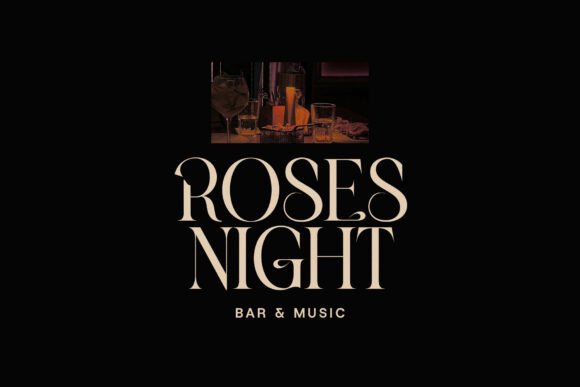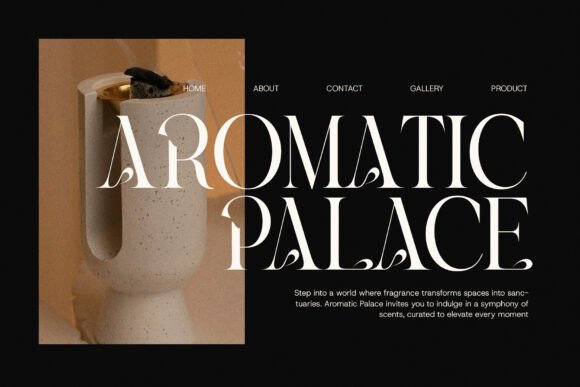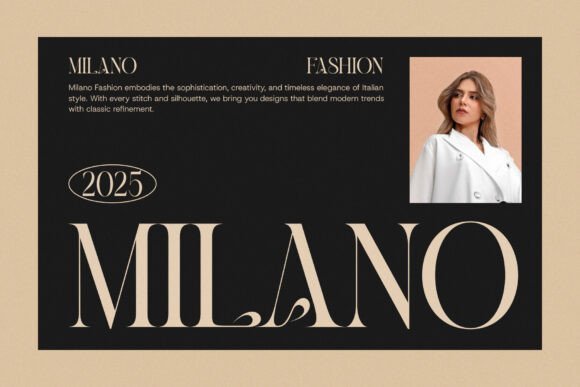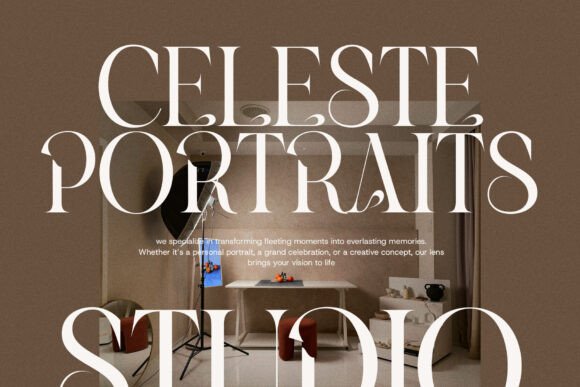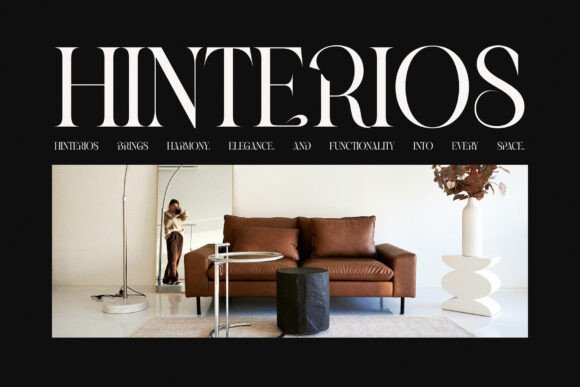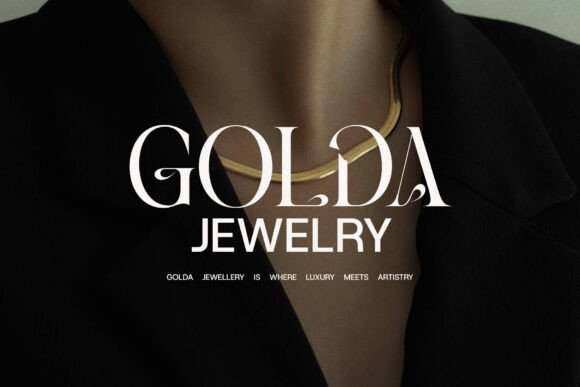
With its unique blend of classic serifs and modern design elements, Buaser Font instantly caught my attention. I was intrigued by its exquisite ligatures, carefully crafted alternate forms, and refined structure. It was as if the font was tailor-made for my project. In this article, I’ll share my experience with Buaser Font, its features, and how to make the most of it in various design applications.
An Honest Review of Buaser Font
- ✨ Elegant and sophisticated design
- ✅ Unique blend of classic serifs and modern elements
- ✅ Exquisite ligatures and alternate forms
- ✅ Refined structure that enhances any design
- ✅ Versatile and suitable for various applications
While Buaser Font is an excellent choice, there are a few things to keep in mind: 🤔
- ⚠️ May require additional setup for OpenType features
- ⚠️ Not ideal for body text or long-form content
The Designer Inspiration Behind Buaser Font
Buaser Font was designed with the goal of creating a unique and sophisticated typeface that blends classic serifs with modern elements. The designer aimed to craft a font that would add a touch of elegance and charm to any creative project. While the designer’s background and inspiration are not publicly known, it’s clear that Buaser Font was created with attention to detail and a passion for typography.
Q: What is Buaser Font best suited for?
A: Buaser Font is ideal for luxury branding, elegant websites, magazine layouts, premium product packaging, and high-end designs.
Q: Can I use Buaser Font for body text?
A: While Buaser Font is elegant, it’s not recommended for body text or long-form content. It’s better suited for headlines, titles, and short paragraphs.
Q: Does Buaser Font support OpenType features?
A: Yes, Buaser Font supports OpenType features, including ligatures, stylistic alternates, and glyphs.